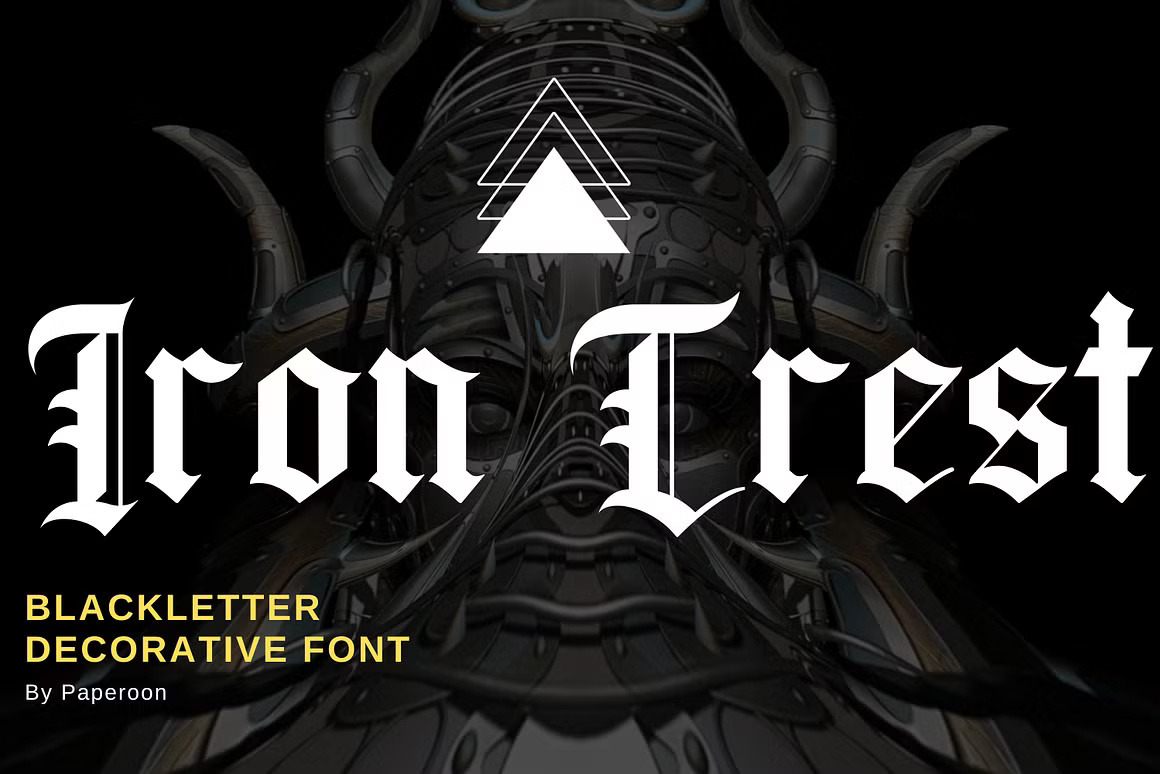
IronCrest - A Blackletter Font
Introducing IronCrest: A Distinctive Blackletter Decorative Font for Creative Projects
Step into the world of IronCrest, a blackletter decorative font designed to add a bold, gothic touch to your designs. Perfect for a variety of projects—whether it’s tattoo art, headline creation, striking posters, classic magazine layouts, vintage newspaper aesthetics, trendy t-shirt graphics, or eye-catching labels—IronCrest delivers a unique and powerful aesthetic.
⦿ Key Features:
Discover the unique power of IronCrest—a must-have tool for designers seeking to elevate their projects with gothic artistry. We hope it becomes an essential part of your creative toolkit.